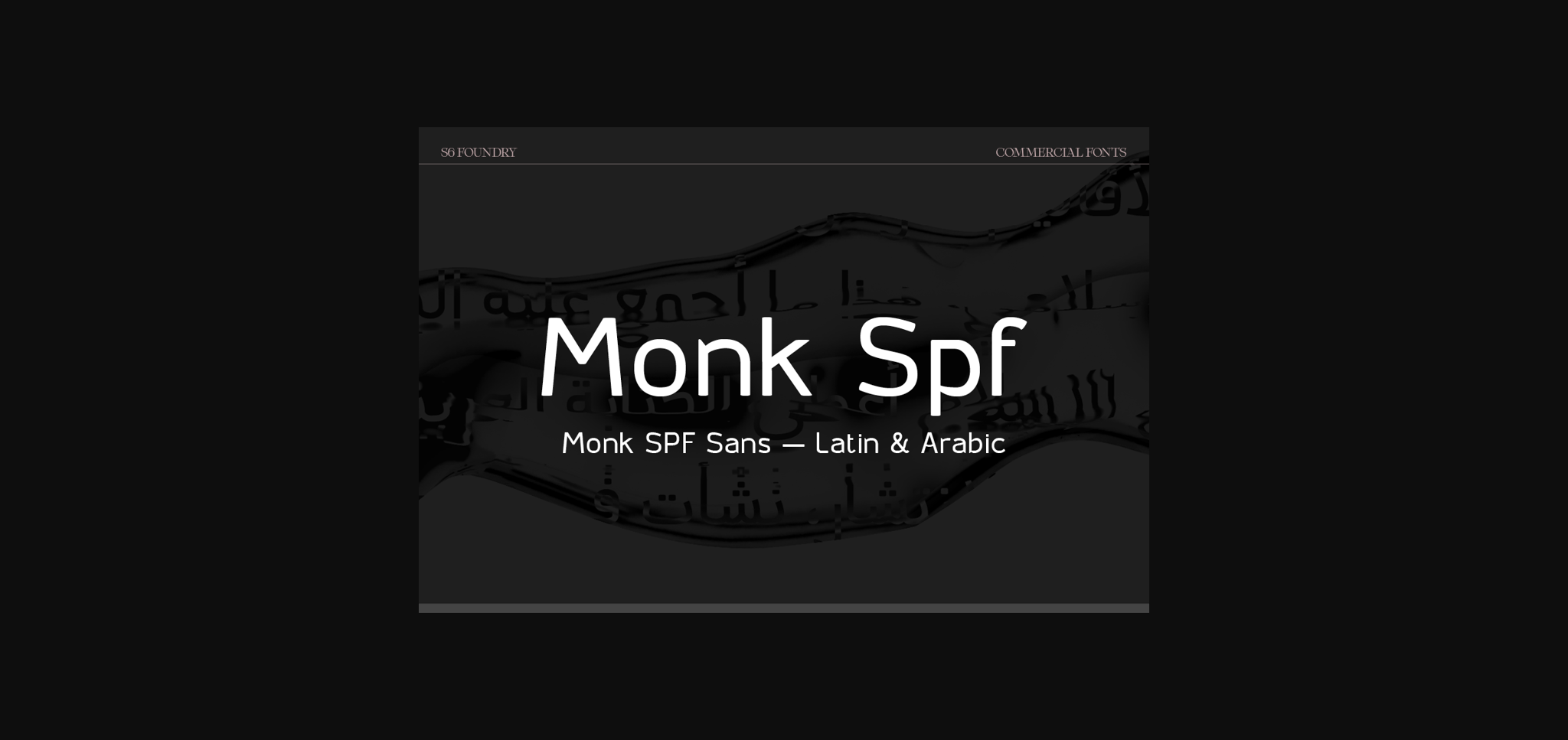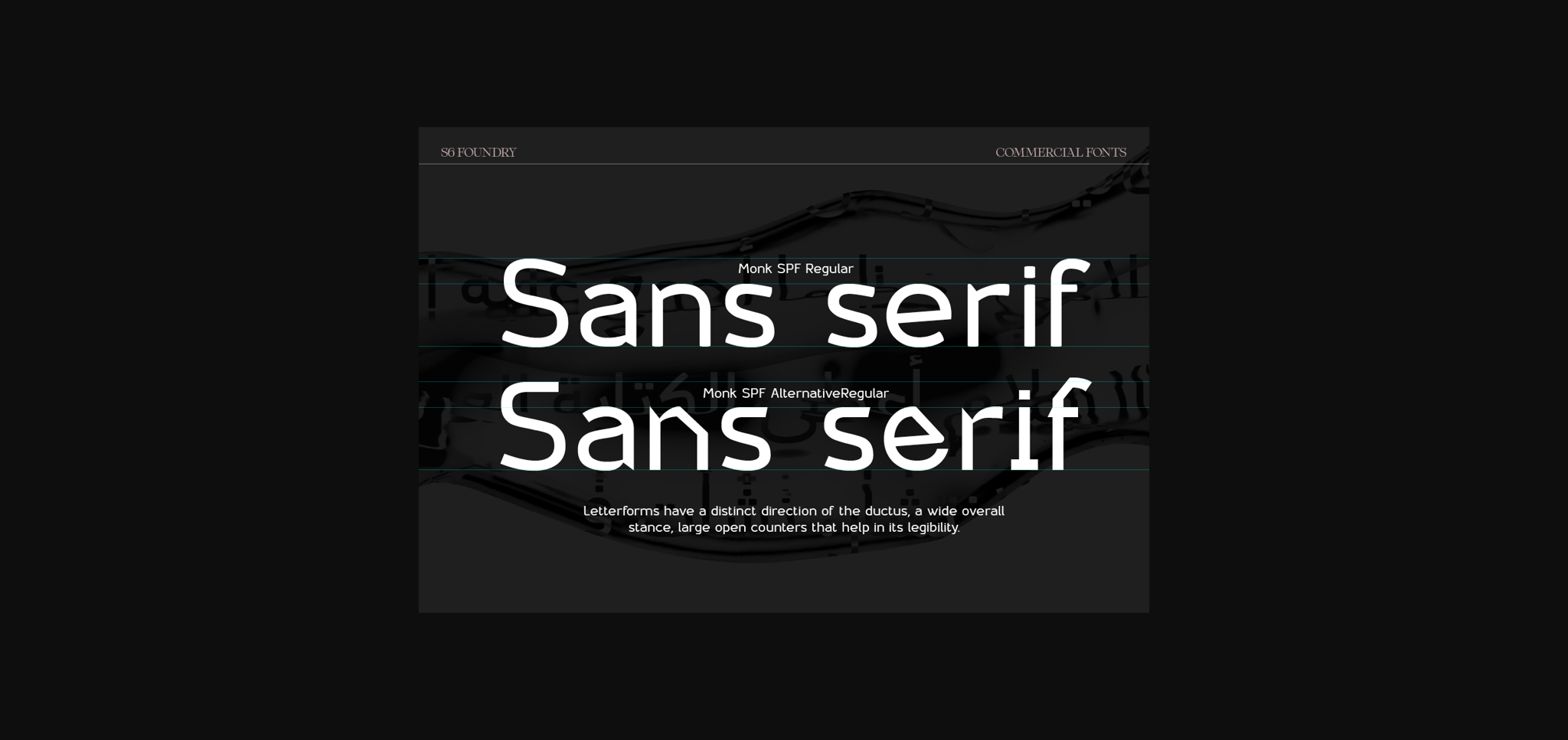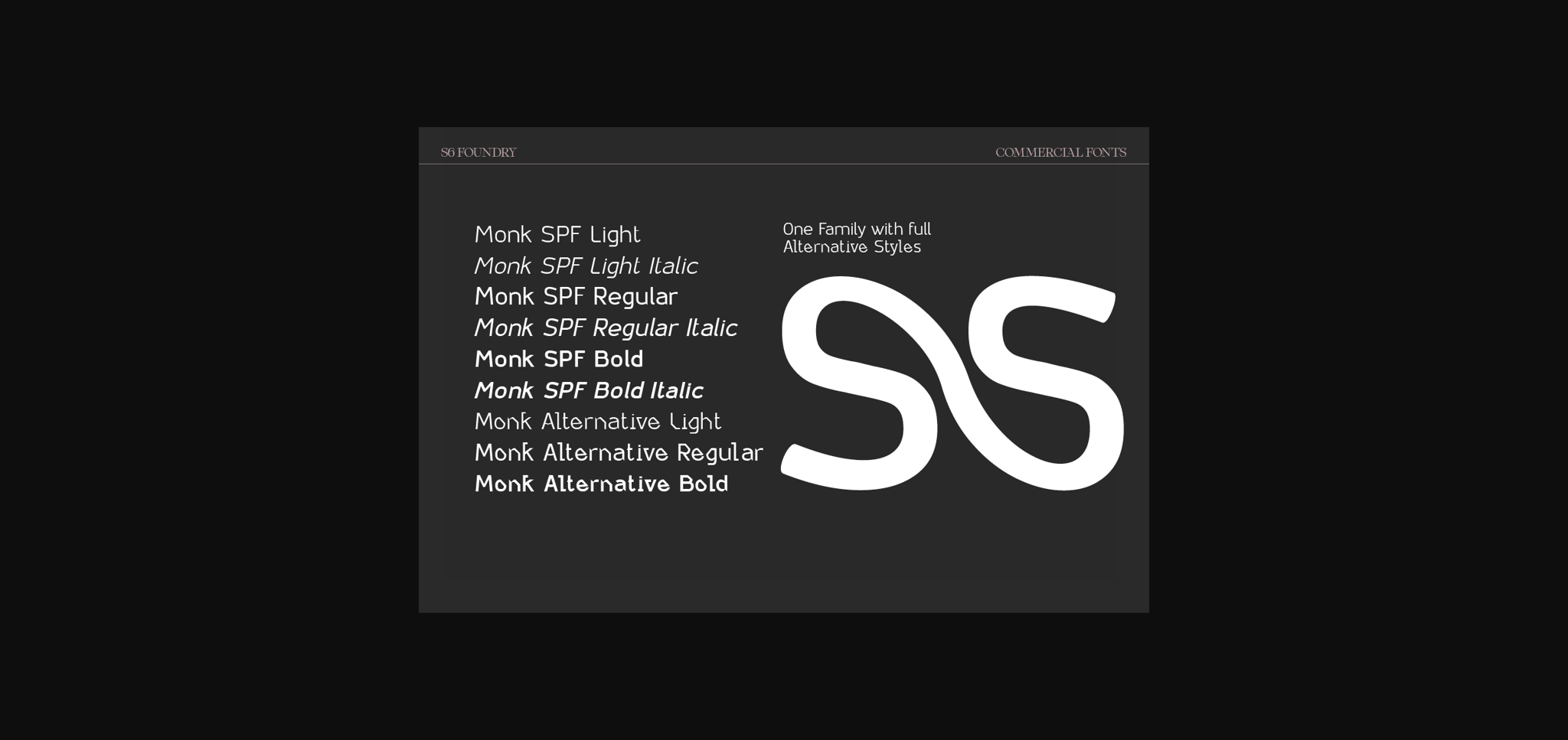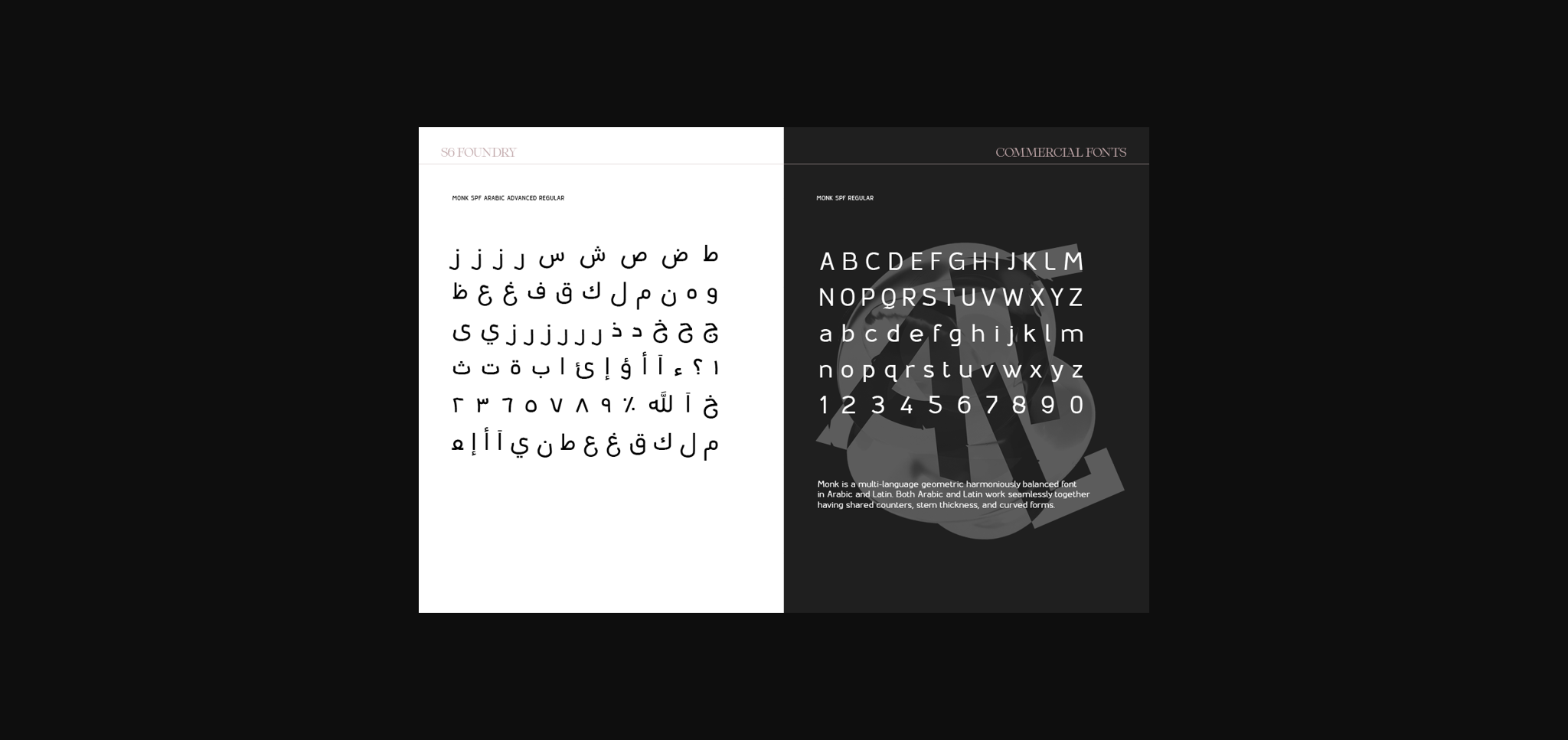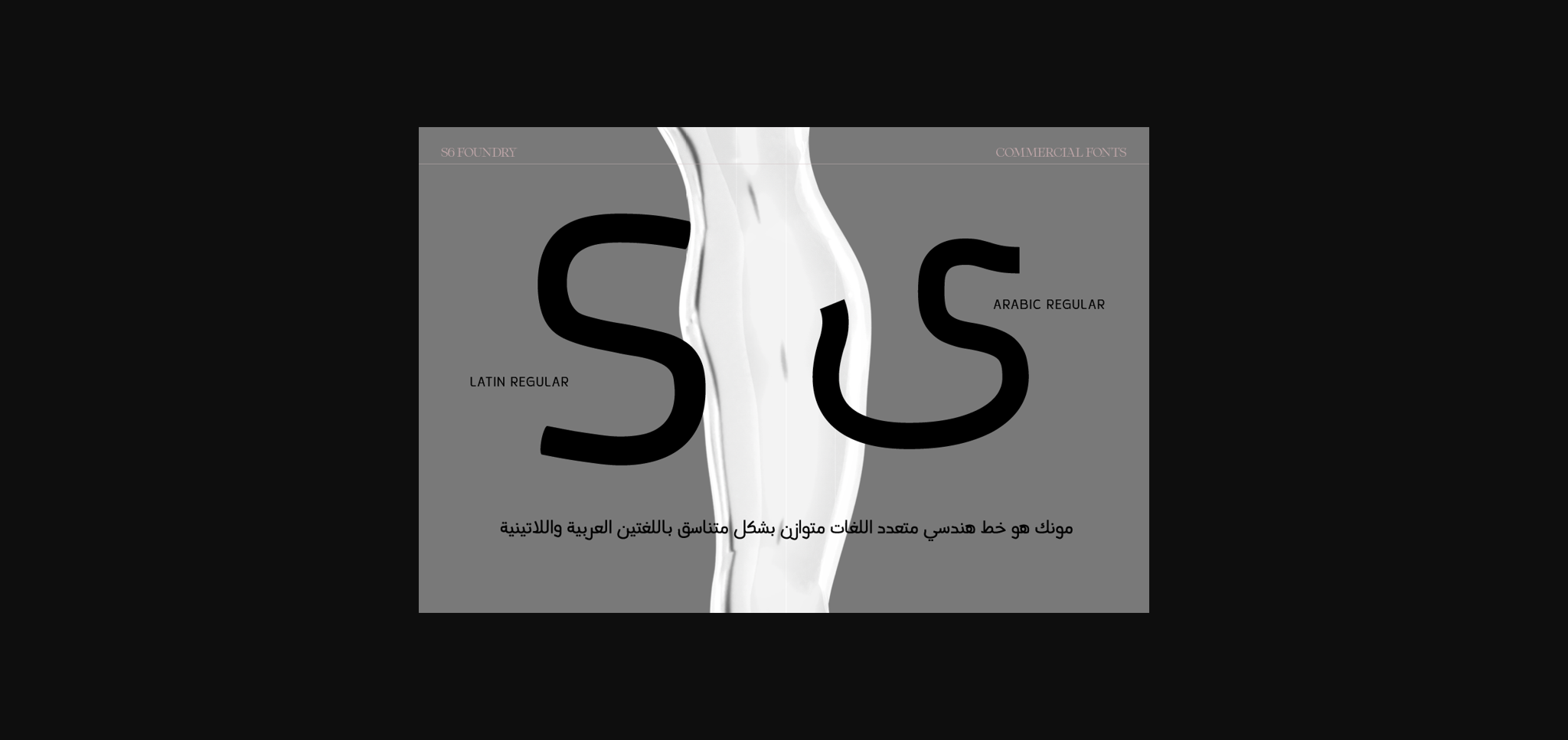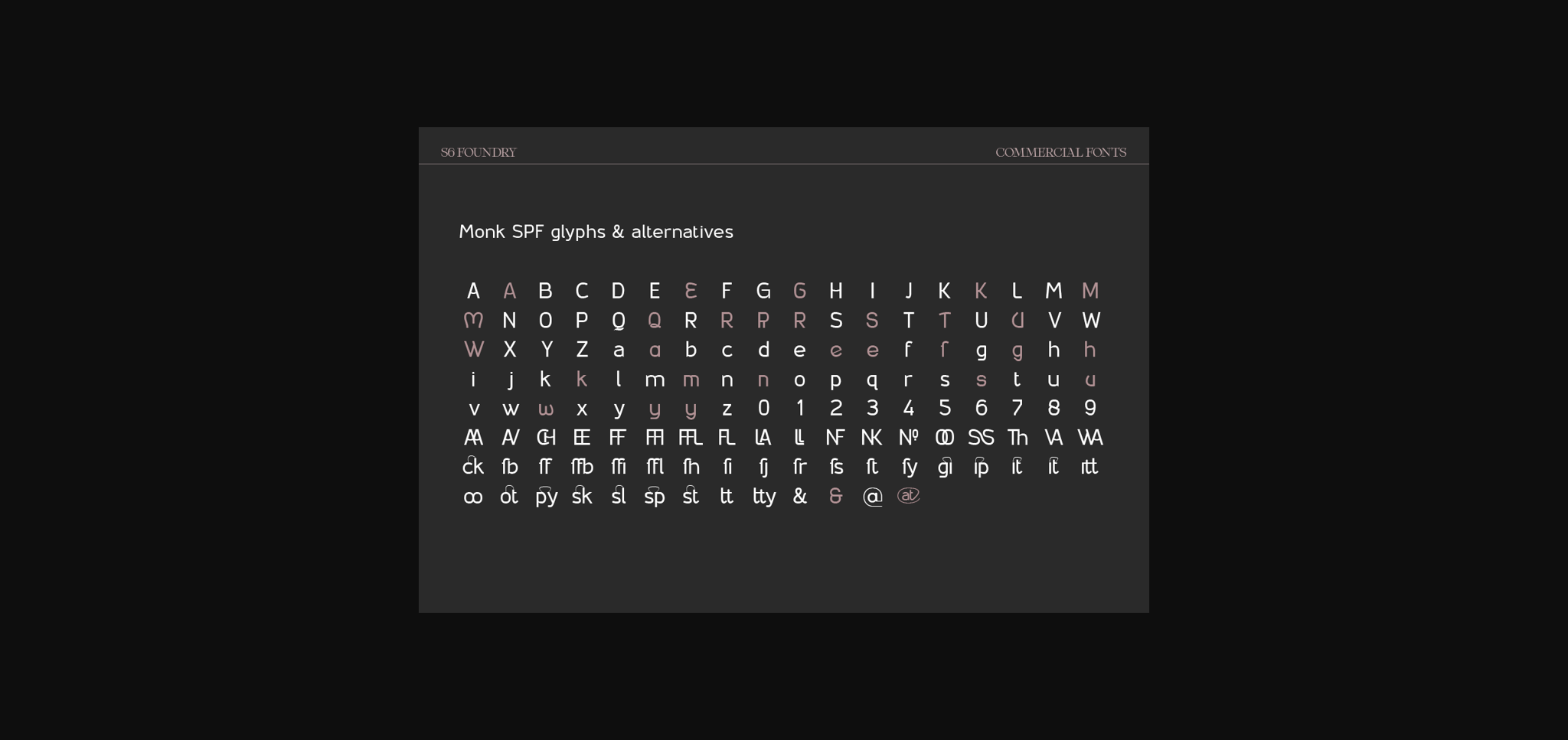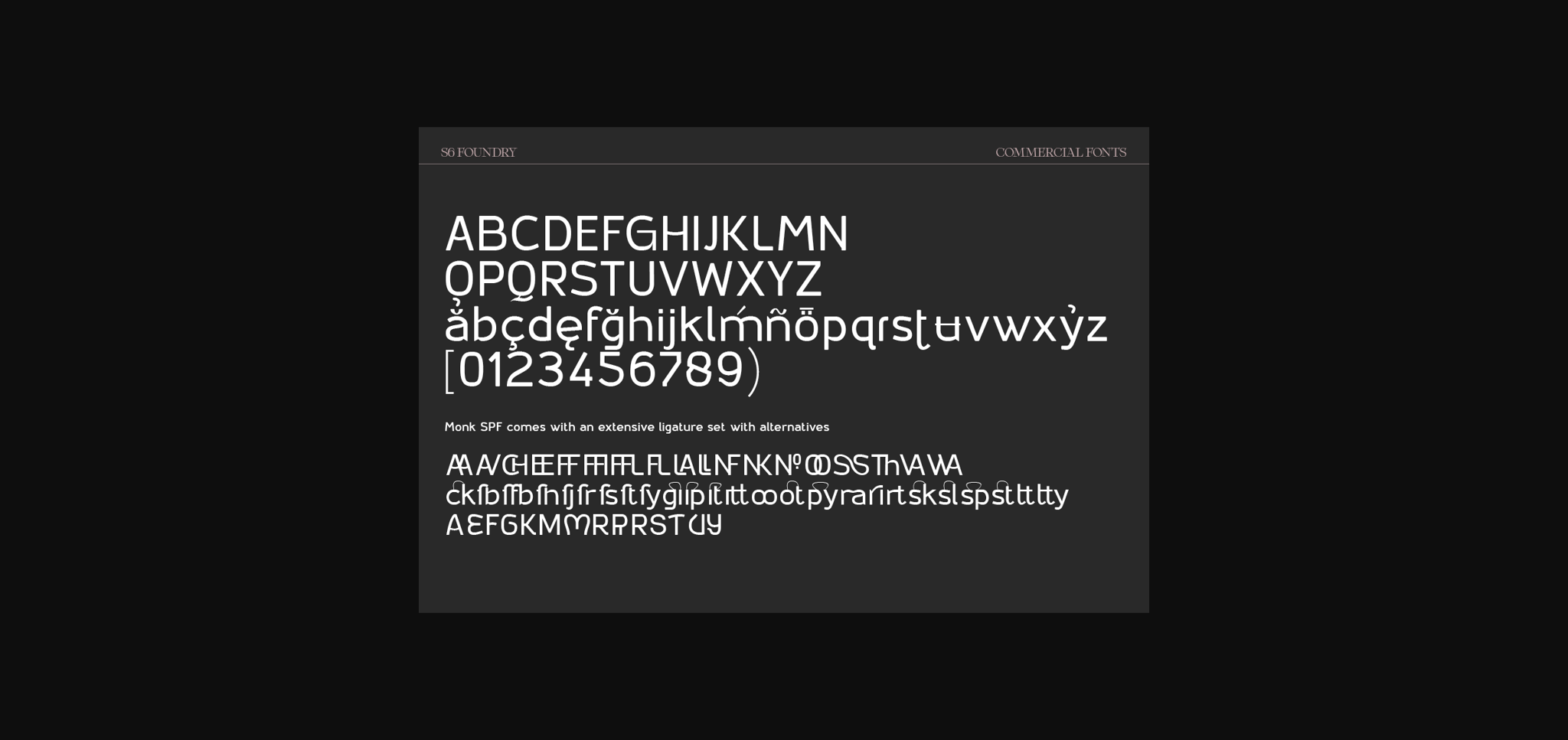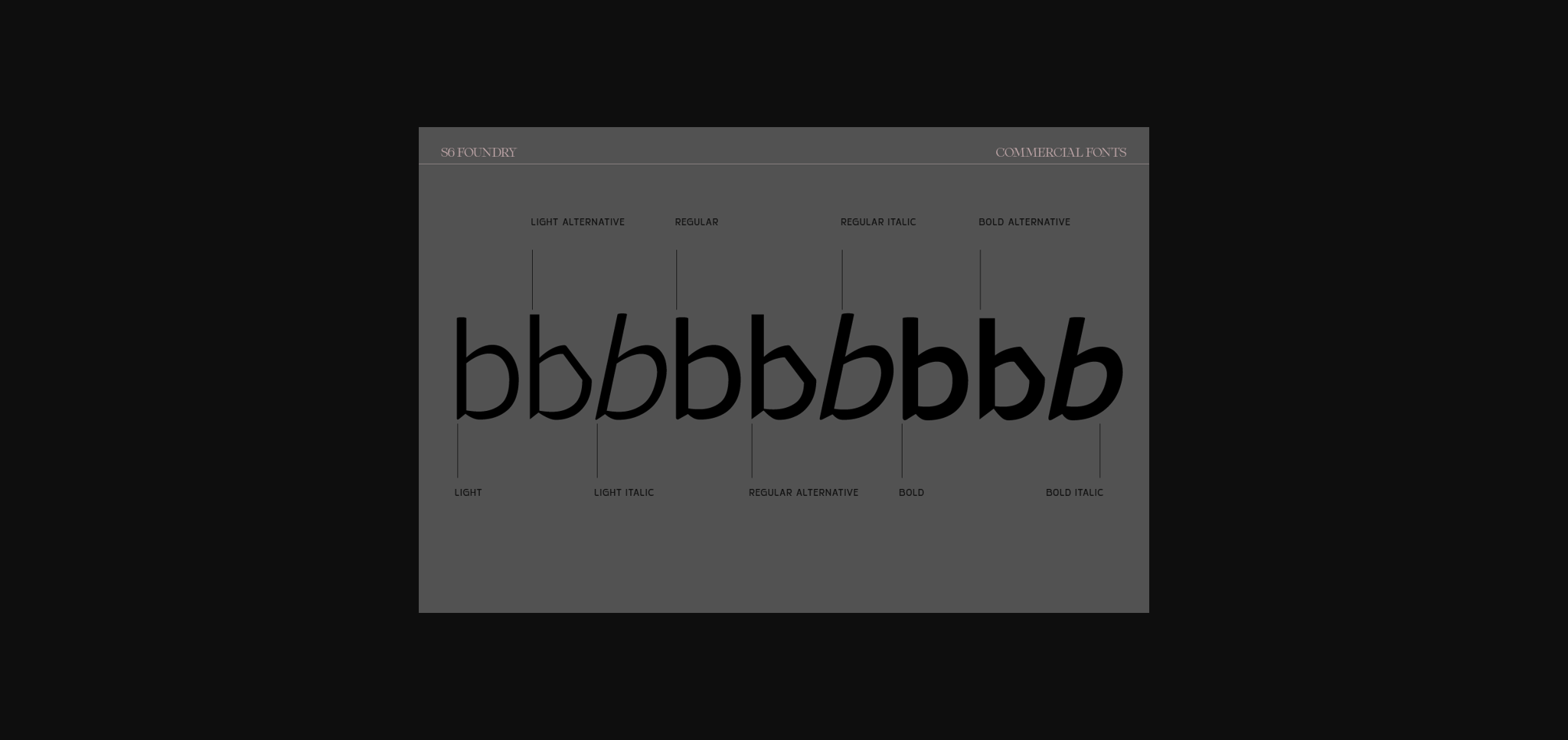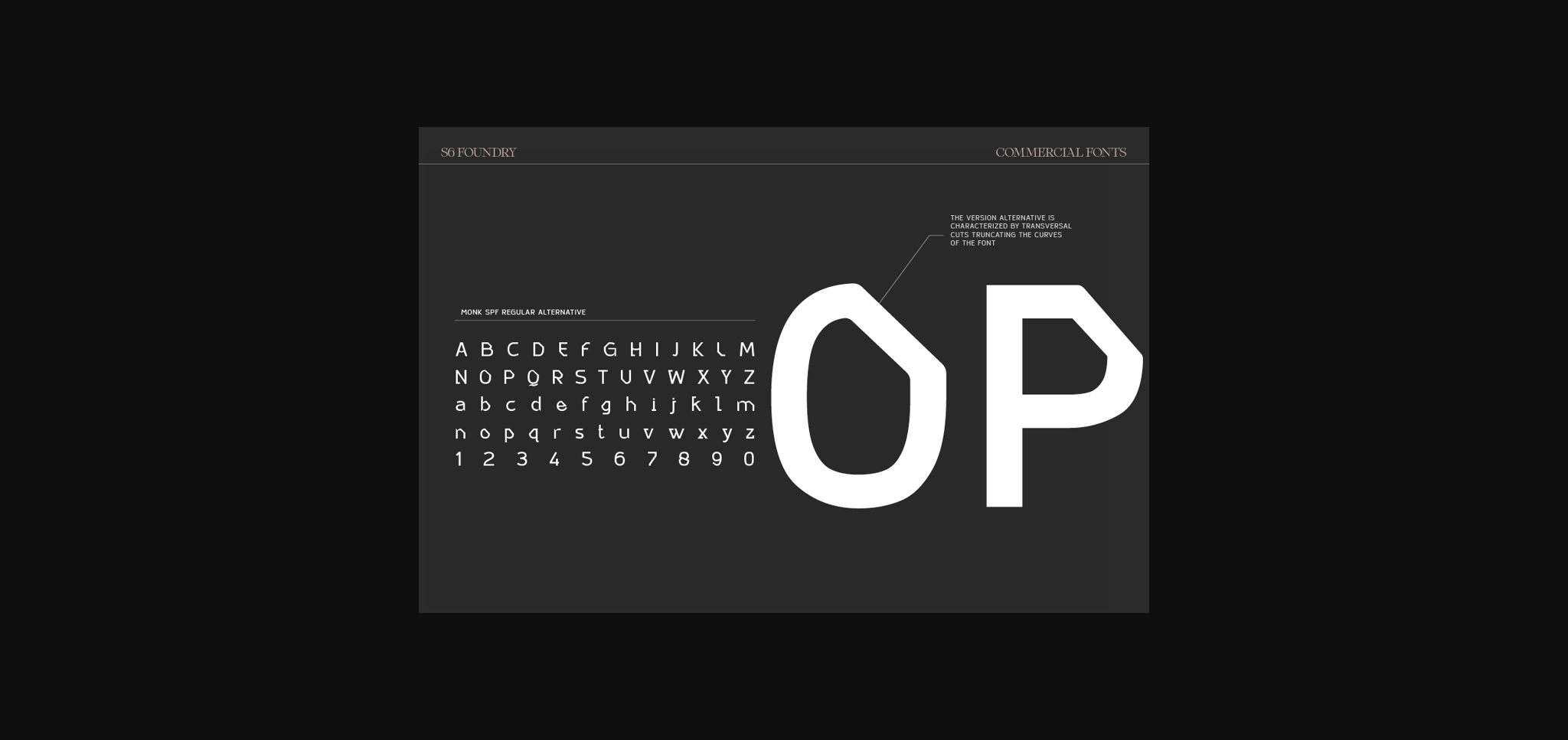
HomeSans Serif FontsMonk Font Sans Serif Fonts Monk Font FacebookXPinterestWhatsApp 1 of 11 ... Monk Font Poster 2... Monk Font Poster 3... Monk Font Poster 4... Monk Font Poster 5... Monk Font Poster 6... Monk Font Poster 7... Monk Font Poster 8... Monk Font Poster 9... Monk Font Poster 10... Monk Font Poster 11... About Monk Font Monk is a cool and modern sans serif font. Whatever the topic, this font will be a wonderful asset to your font library, as it has the potential to enhance any creation. DOWNLOAD NOW People also explored Coomingos Font Winter Fall Font Handmade Font Confidently Font Bettos Font Duo Quindex Font Rain Font Destinee Elizabeth Font Anemolive Font 534 0 TagsMonkMonk Font Previous articleCulture FontNext articleShooting Star Font LEAVE A REPLY Cancel reply Comment: Please enter your comment! Name:* Please enter your name here Email:* You have entered an incorrect email address! Please enter your email address here Website: Save my name, email, and website in this browser for the next time I comment. Personal Use Free Densmore Personal Use Free Read more about this font BD RatterBit Personal Use Free Read more about this font Spring Personal Use Free Read more about this font Covelia Personal Use Free Read more about this font BLOG Free vs Paid Fonts: Why Investing in Premium Fonts Is Worth It Free vs Paid Fonts: Why Premium Fonts Are Worth It in 2025 The debate of free vs paid fonts continues in the design world. While... Where to Buy American Fonts Online in 2024 Exploring Font Trends Elegant Wedding Invitation Fonts – Handwritten & Script Fonts